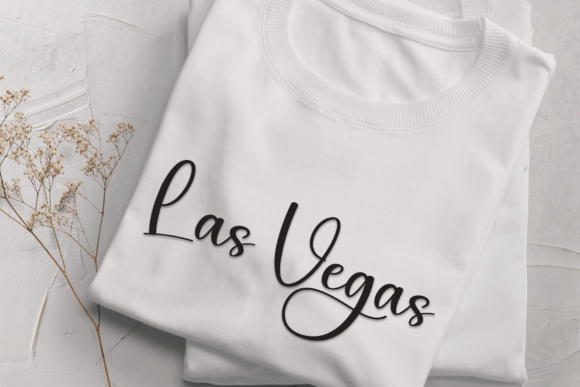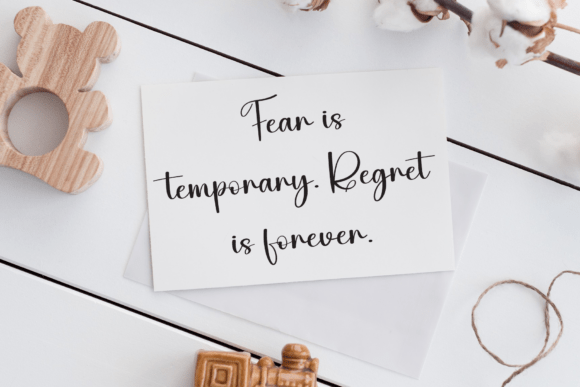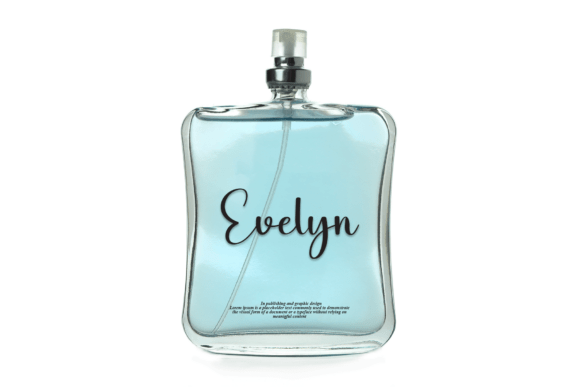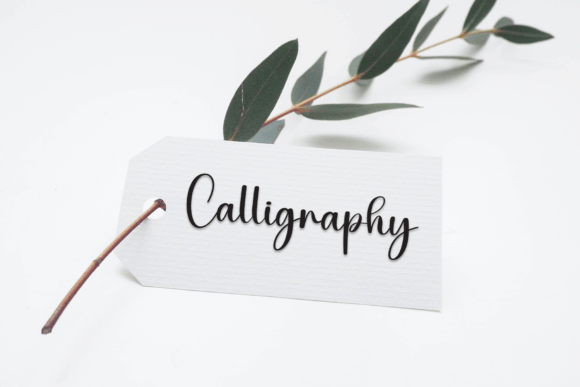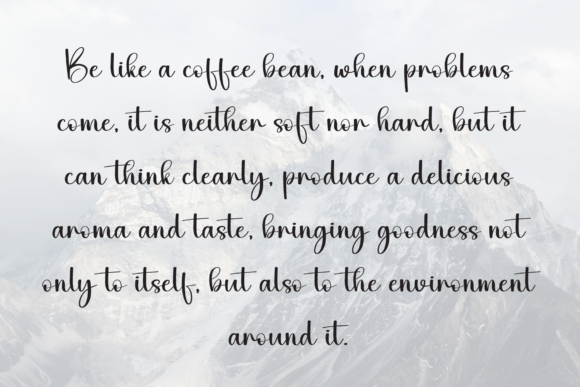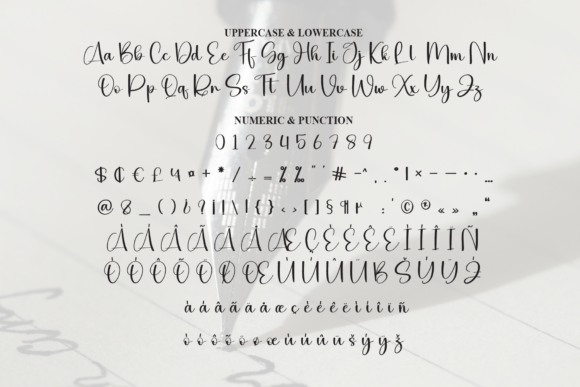
The Art of Elegant Expression
There’s something special about the moment when a creative idea finally takes shape – the spark of inspiration, the rush of excitement, and the satisfaction of bringing it to life. For designers, this moment is often a result of the perfect combination of style, functionality, and flair. And that’s exactly what the Autography Font delivers.
This stylish script font is more than just a pretty face – it’s a powerful tool that can elevate any design from ordinary to extraordinary. With its fluid brush strokes, dynamic curves, and expressive letterforms, it captures the essence of hand-painted calligraphy with a modern twist. Whether you’re designing a logo, invitation, or social media graphic, the Autography Font adds a touch of sophistication and creativity that’s sure to leave a lasting impression.
Key Features of Autography Font
- Font Family: Autography Font is a unique, handwritten font designed for various applications, including digital and print media.
- Unique Characteristics: Features a natural, handwritten feel with subtle variations in line width and letter spacing, giving it a personal and organic look.
Autography Font Review
As a designer, I’ve had the chance to work with Autography Font, and I must say, it’s a unique and intriguing typeface. ✨ One of the things that stands out about Autography is its expressive and fluid nature. The letterforms seem to dance on the page, with a natural flow that’s perfect for creative projects.
The font also comes with a wide range of weights, from light to bold, giving designers plenty of options for customization. ✨ I appreciate the attention to detail in the font’s design, with subtle nuances in each weight that add to its overall charm.
- ⚠️ Readability can be a concern at smaller font sizes, as the letterforms can become difficult to distinguish.
- ⚠️ The font may not be suitable for large blocks of text, as its flowing nature can make it feel cluttered.
Overall, I think Autography Font is a great choice for designers looking to add some personality to their projects. While it may not be the best choice for every situation, it’s definitely worth considering for creative projects where a more expressive font is needed.
Tips for Getting the Most Out of Autography Font
Use Autography Font to add a personal touch to your designs, especially for handwritten-style text.
Combine Autography Font with other design elements, such as illustrations or graphics, to create a unique visual style.
Use Autography Font for:
Handwritten-style text, such as quotes or signatures.
Titles or headings in a design.
Adding a personal touch to a logo or branding.